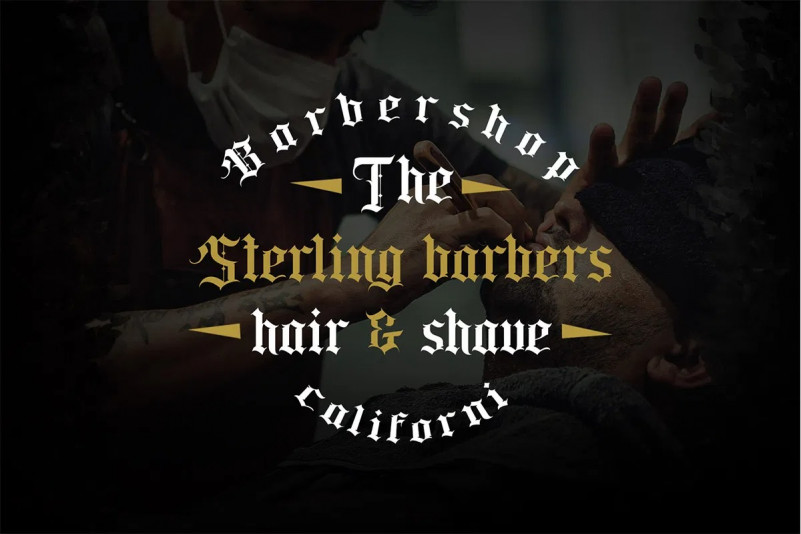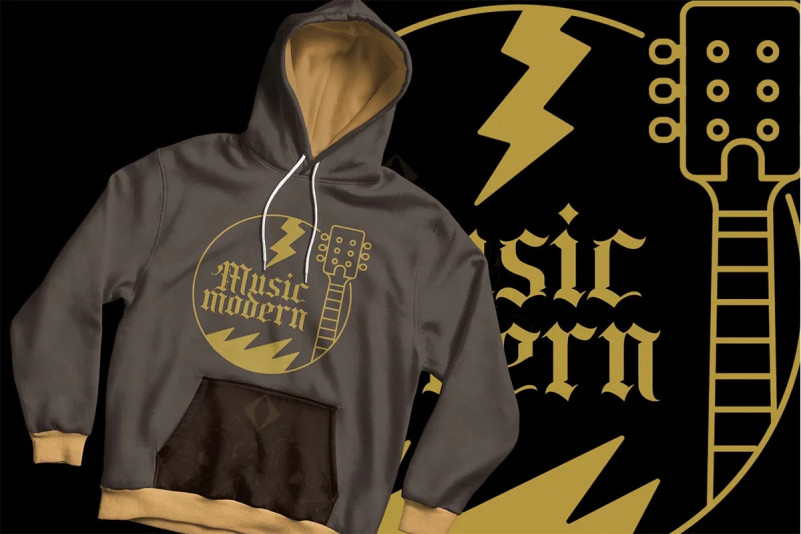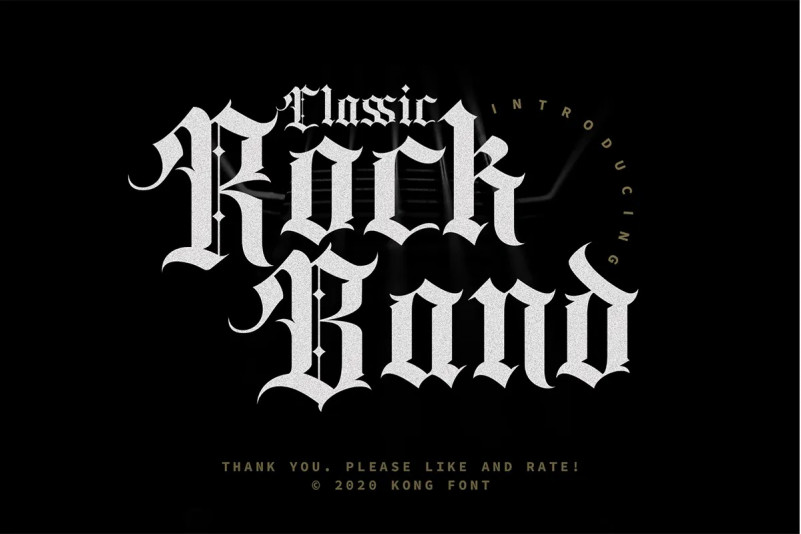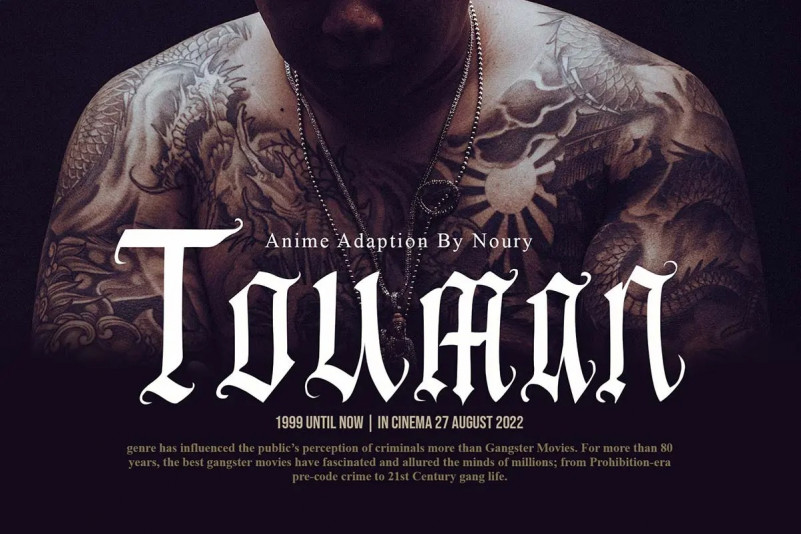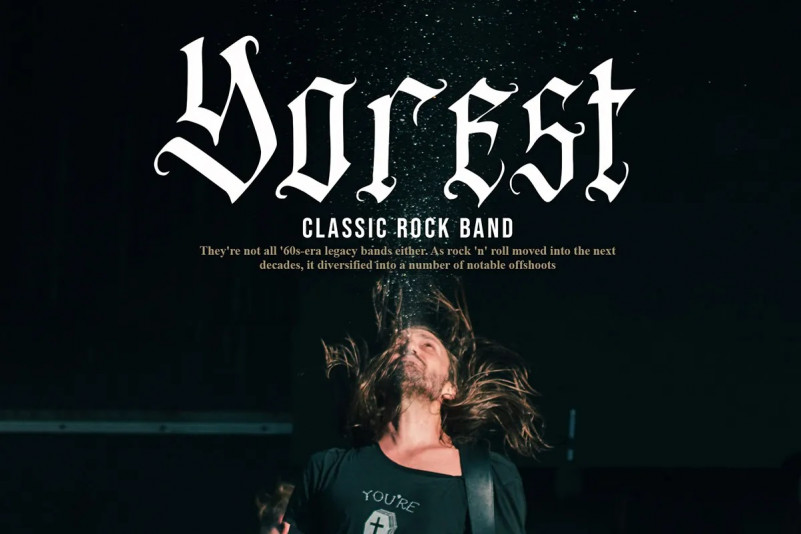
Hitron Blackletter Font
Hitron is a distinct and thick lettered blackletter font. It works wonderfully on a variety of designs that require a trendy touch. Add it confidently to your projects, and you will love the results.